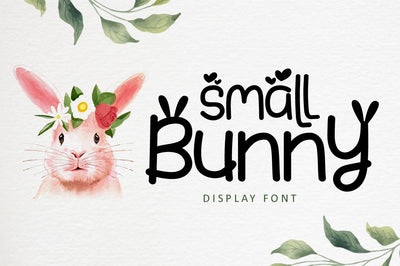
Small Bunny - Display Font
Small Bunny is a cute and fun display font with a modern feel. Get inspired by its unique charm, and turn any design idea into a true standout.